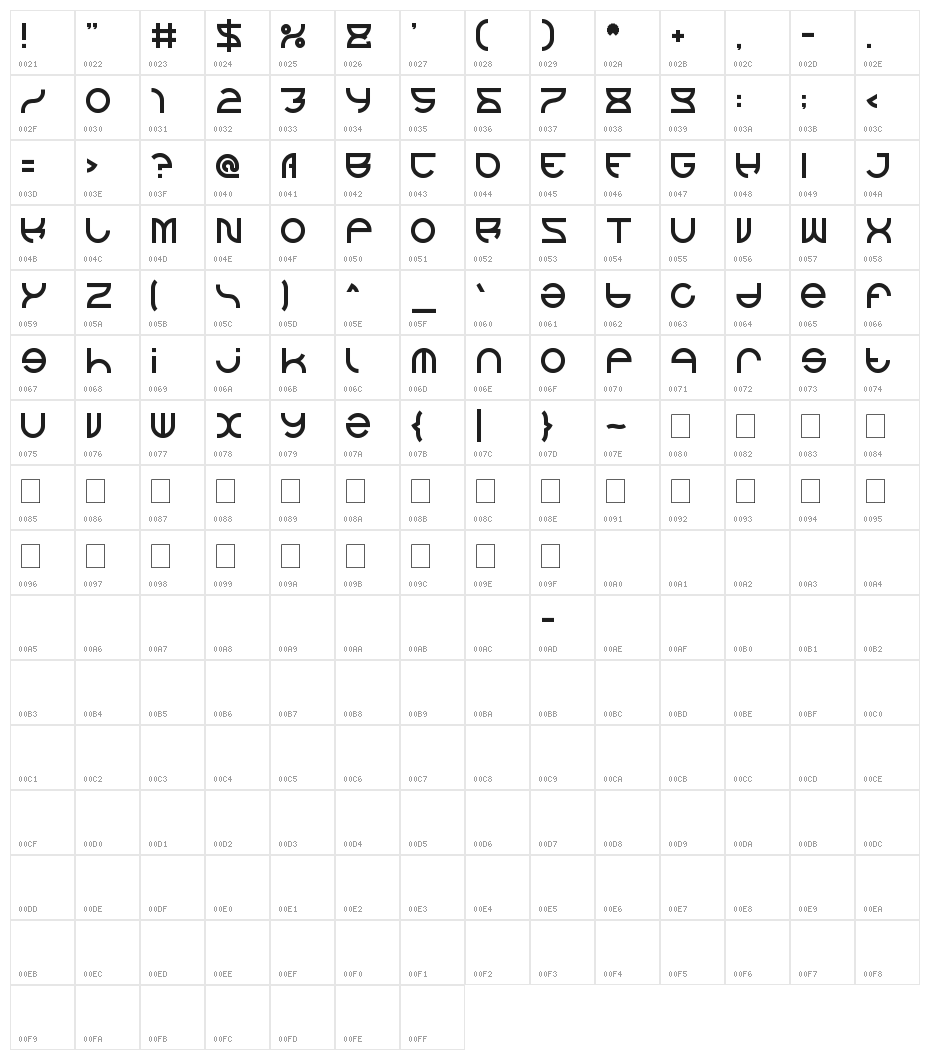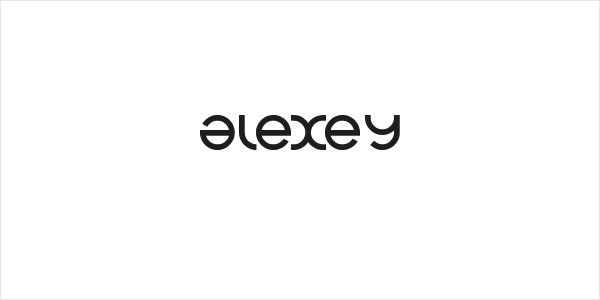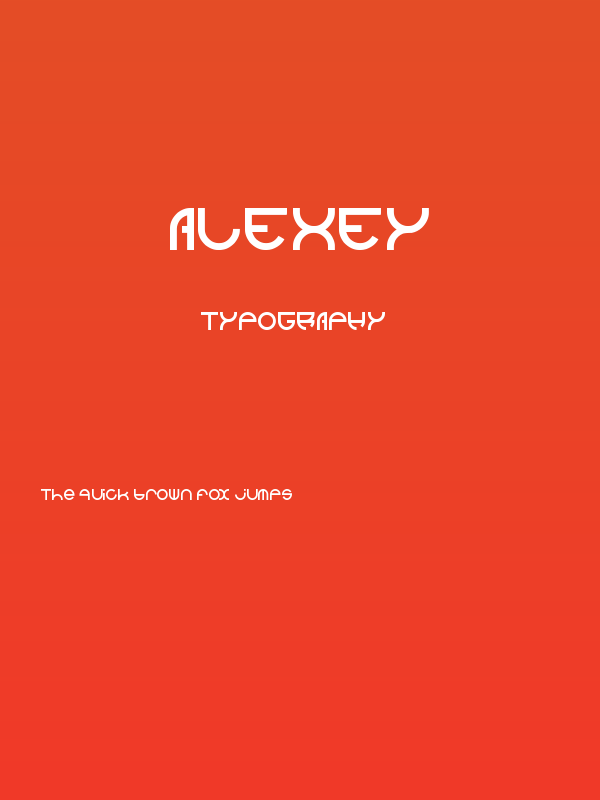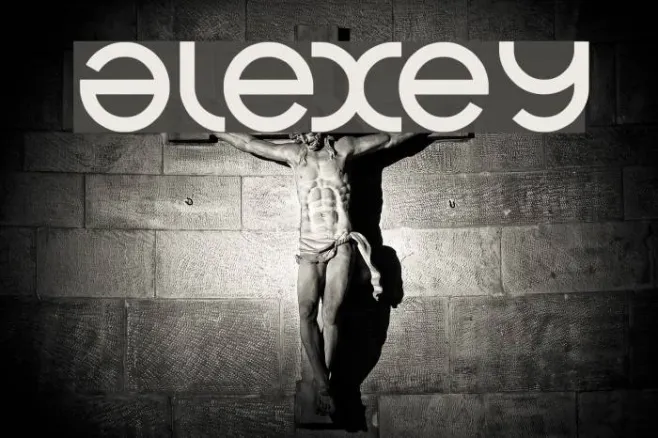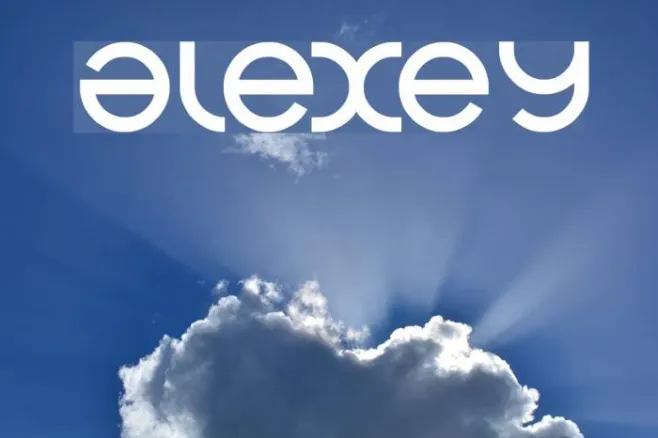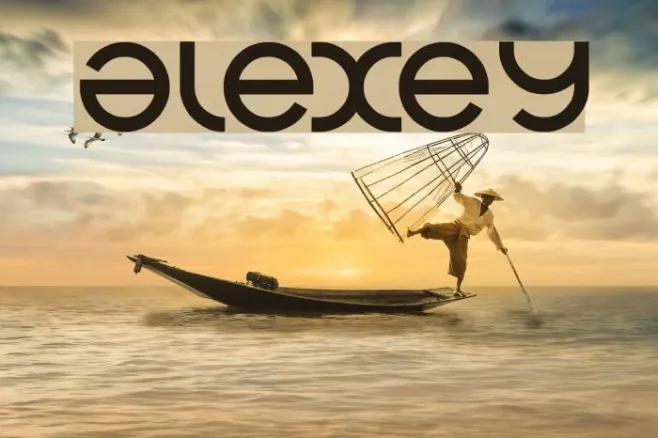
alexey Font
alexey Description
This font features a futuristic and geometric design, characterized by its bold and angular letterforms. The uppercase and lowercase letters share similar structural elements, creating a cohesive and unified appearance. The characters are constructed with a combination of straight lines and curves, giving them a dynamic and modern look. The numbers and special characters maintain the same stylistic approach, ensuring consistency across the entire typeface. This font's unique style makes it suitable for projects that require a contemporary and eye-catching aesthetic.
| Proposed Projects | Ideal for sci-fi themed designs, technology branding, modern posters, and digital media. |